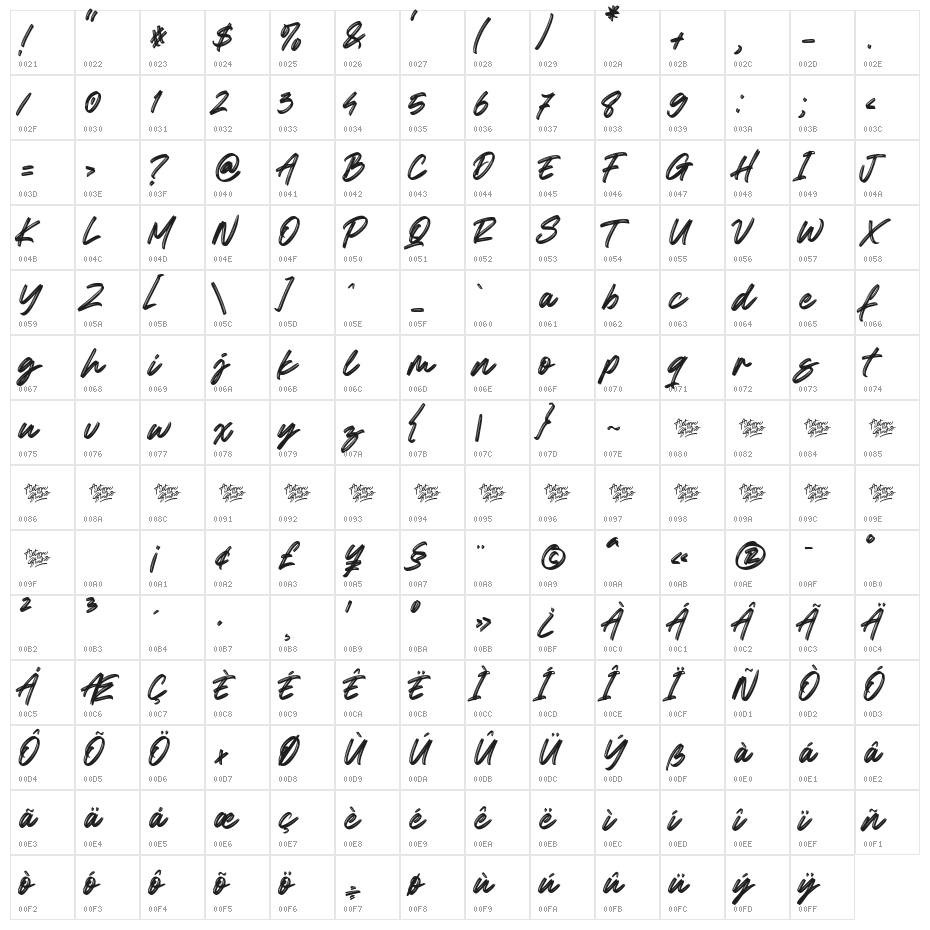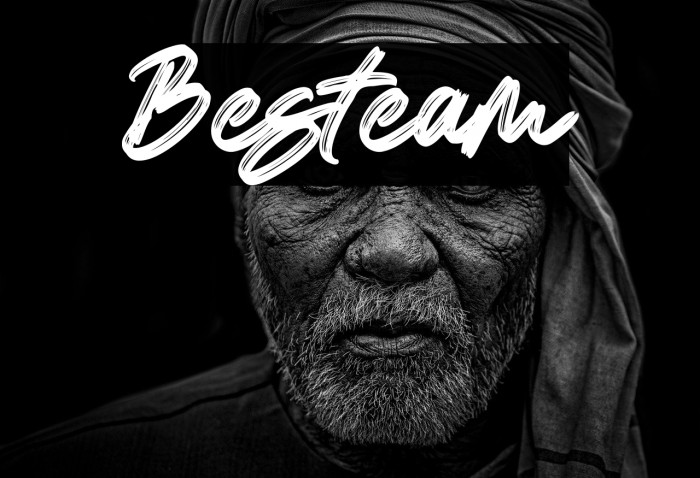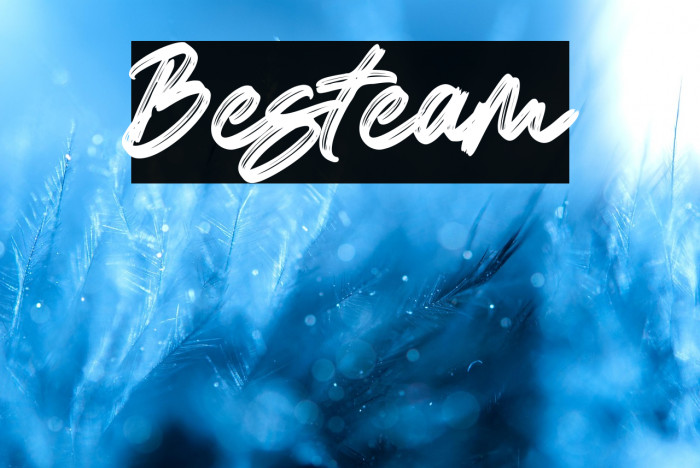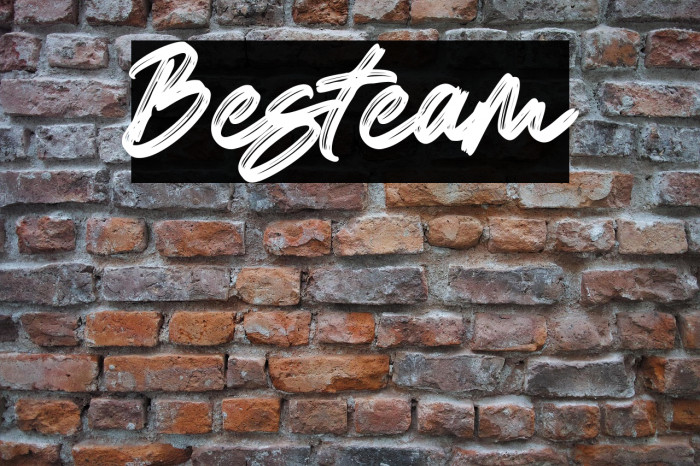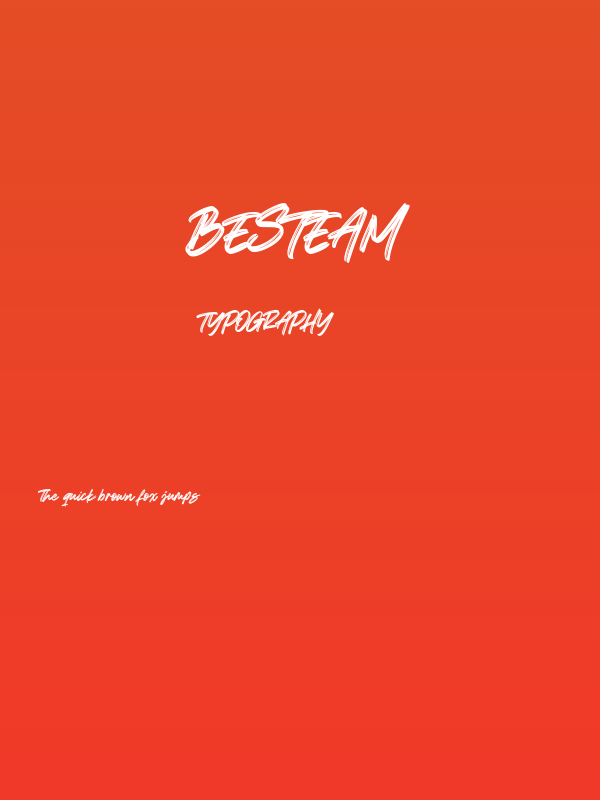
Besteam Font
| Caso d'uso | Logos, Headlines, Artistic projects |
| Progetti proposti | Ideal for creative projects like greeting cards, invitations, artistic posters, and branding materials that require a personal touch. |